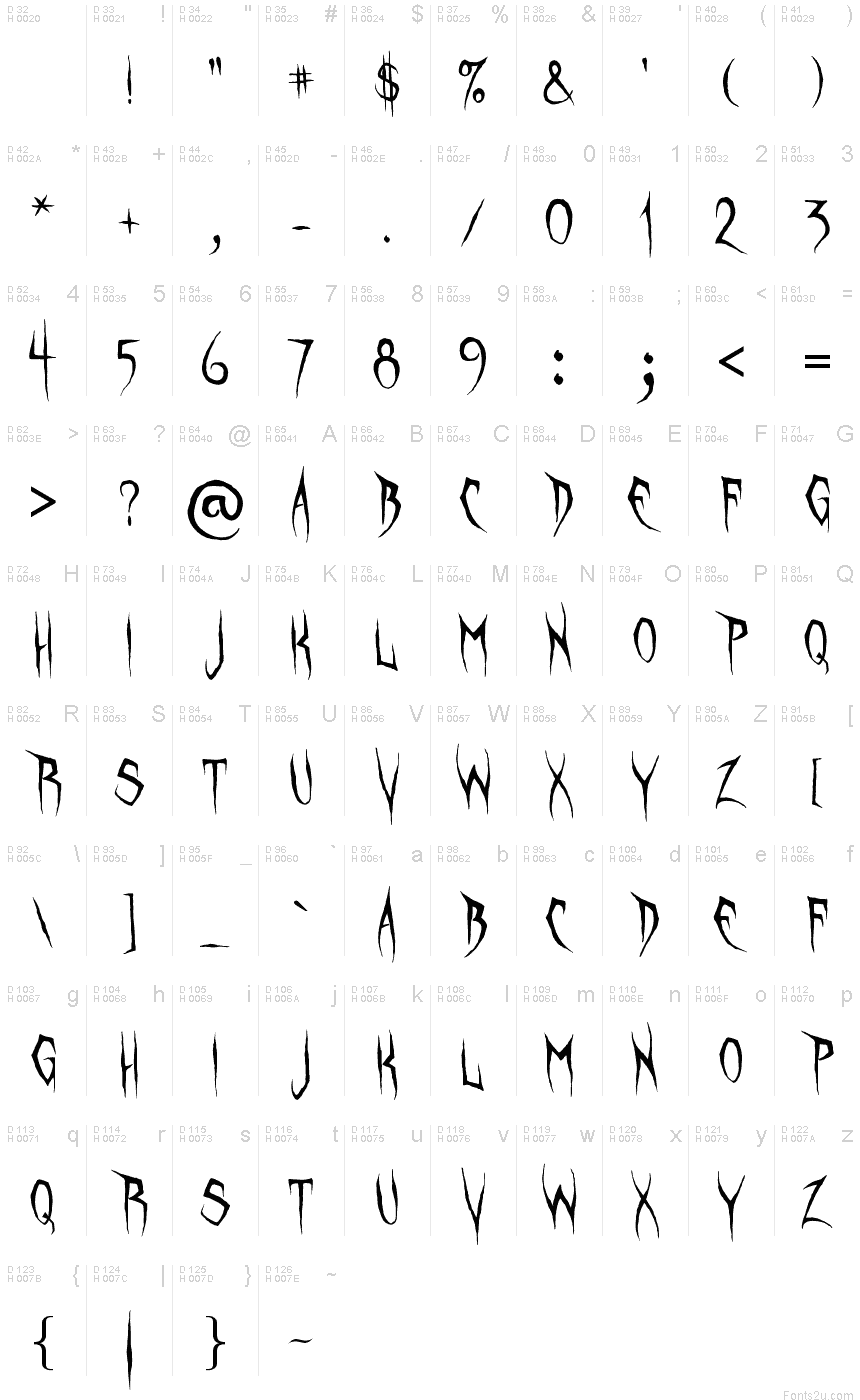
Unquiet Spirits by Chad Savage of Sinister Fonts is a free decorative display font with a raw horror profile. Its tall uneven letters twist between broad blunt strokes and needle-thin points. Abrupt cuts and crooked angles keep every line tense.
Illustrated monsters and distressed textures echo the lettering's torn pointed shapes in film posters, game graphics, and haunted event signage. It also suits heavy-metal merchandise. The fang-like tips make the type itself part of the horror imagery.
Created in 2010, this hand-lettered font is a more controlled version of the creator’s other font, Ghastly Panic.